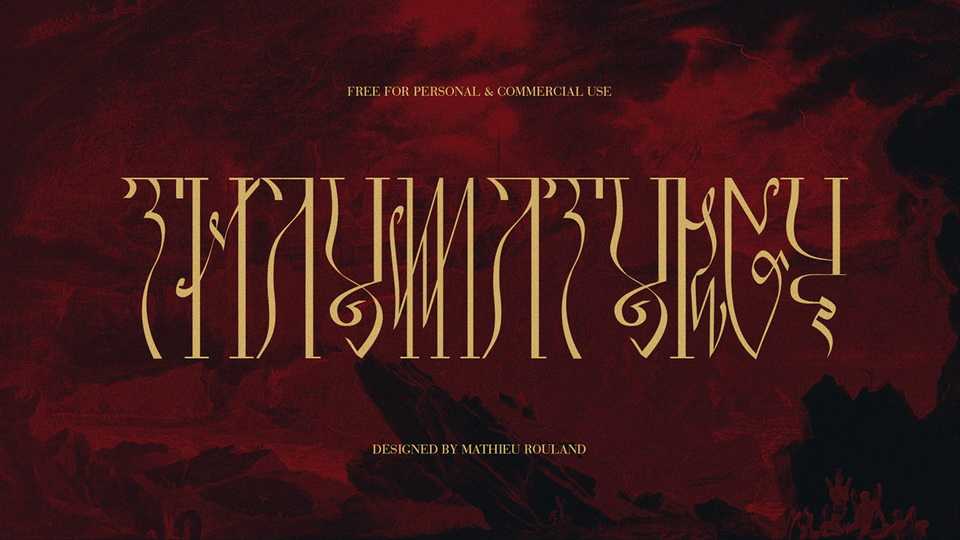
Download Thaumaturgy font, a decorative display typeface, influenced by romantic depictions of heaven and hell in painting from the late XVIIIth century and the long tradition of flirting with occult it inspired.